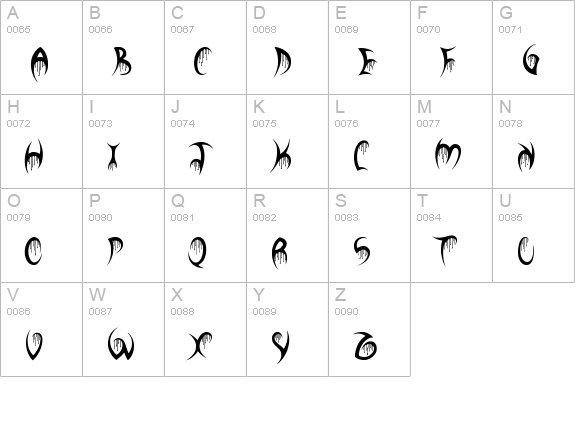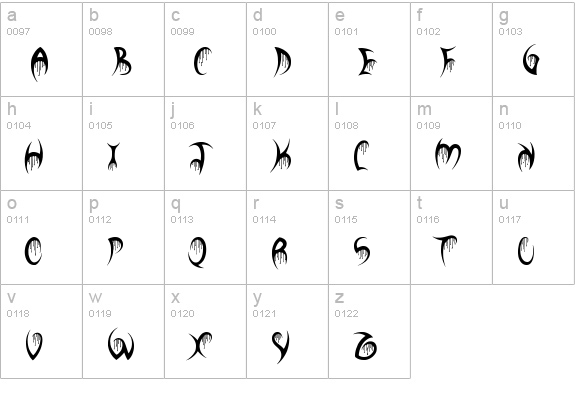
Dracula Font Details
Dracula font is a mesmerizing, gothic-inspired typeface that embodies the essence of darkness and mystery. With its sharp, angular letterforms and intricate details, this font exudes a haunting elegance that is both captivating and chilling. Created by a team of talented designers, Dracula font is perfect for any project that requires a touch of the macabre. Whether you're designing a horror movie poster, a book cover for a vampire novel, or a Halloween party invitation, this font will add an air of spine-tingling excitement. One of the most appealing aspects of Dracula font is that it is freely available to download at FontsMarket.com. This means that you can easily access and use this captivating typeface without any restrictions or costs. Whether you're a professional designer or a hobbyist, you can take advantage of this incredible opportunity to add a touch of gothic allure to your projects. Dracula font is not just visually stunning, but also highly versatile. It includes a wide range of characters and symbols, allowing you to create eye-catching headlines, stylish logos, and unique designs. The font's attention to detail and fine craftsmanship make it a true work of art that will leave a lasting impression on anyone who sees it. So, if you're looking for a font that will leave a lasting impression and add a touch of gothic allure to your designs, look no further than Dracula font. Download it for free at FontsMarket.com and unleash your creativity in the darkness.